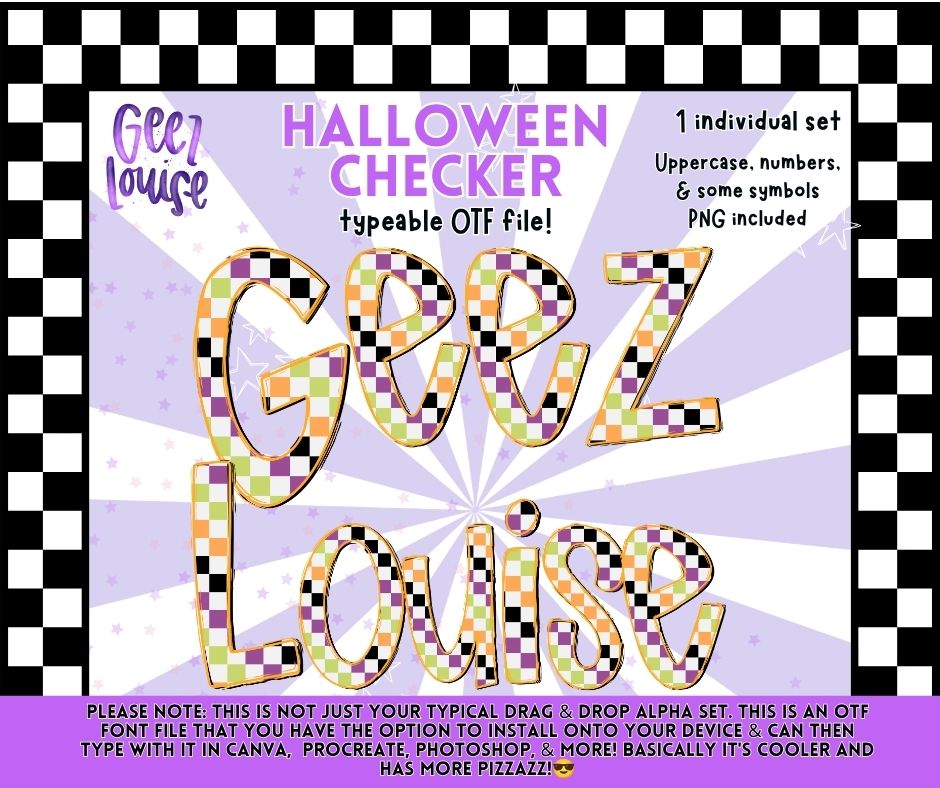
Halloween Checker OTF Alpha Font & PNG Alphabet Set
Create fun Halloween designs with the Halloween Checker OTF Alpha! This typeable alphabet features a trendy spooky checker pattern and includes uppercase letters, numbers, and select symbols. Install the OTF font to type directly in your favorite design programs or use the included PNG files.